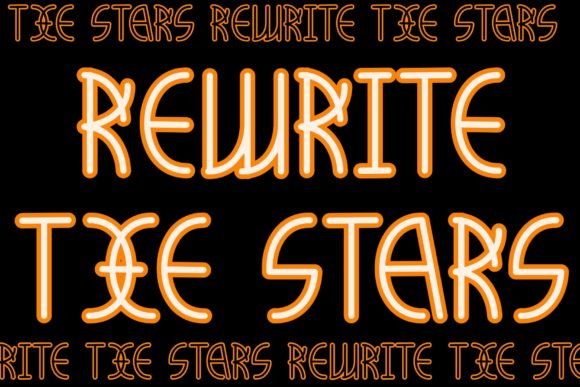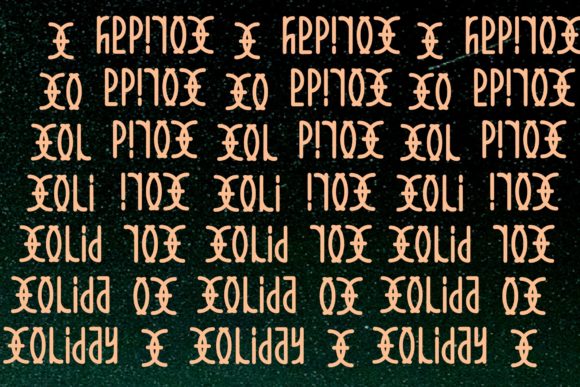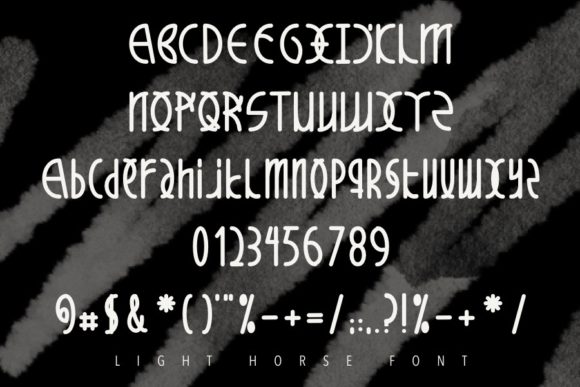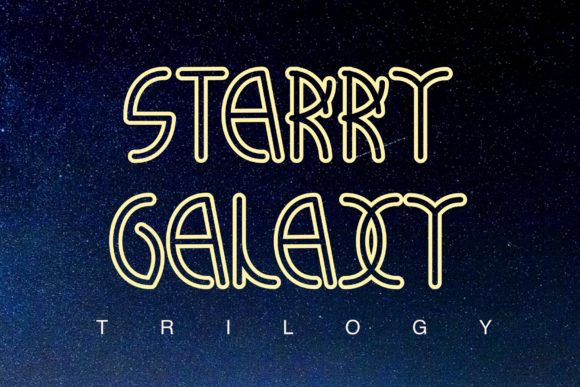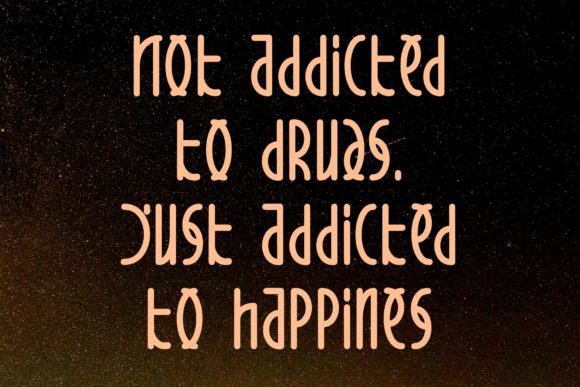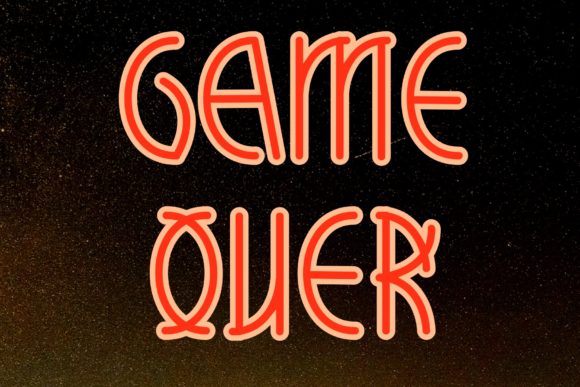
Introduction to Light Horse Font Font
Fonts play a crucial role in design, and the Light Horse Font font is a typeface that brings both character and versatility to any project. Whether you’re working on a branding project, a website, or a print design, the Light Horse Font font offers a unique style that can elevate your work.
Light Horse font is a gorgeous and unique display font.
Featuring a modern style, this font is perfect for games, logos, stationery, quotes, book covers, magazines, branding and much more .
Key Features of Light Horse Font Font
Why Choose Light Horse Font Font?
The Light Horse Font font is more than just a typeface – it’s a design tool that helps you communicate your message with style and clarity. Its unique character set and versatile design make it suitable for a wide range of applications, from elegant invitations to bold headlines.
With its carefully crafted letterforms and balanced proportions, the Light Horse Font font ensures readability and visual appeal across all mediums.
What makes Light Horse Font font special?
The Light Horse Font font stands out with its unique design, exceptional readability, and versatility across various design applications.